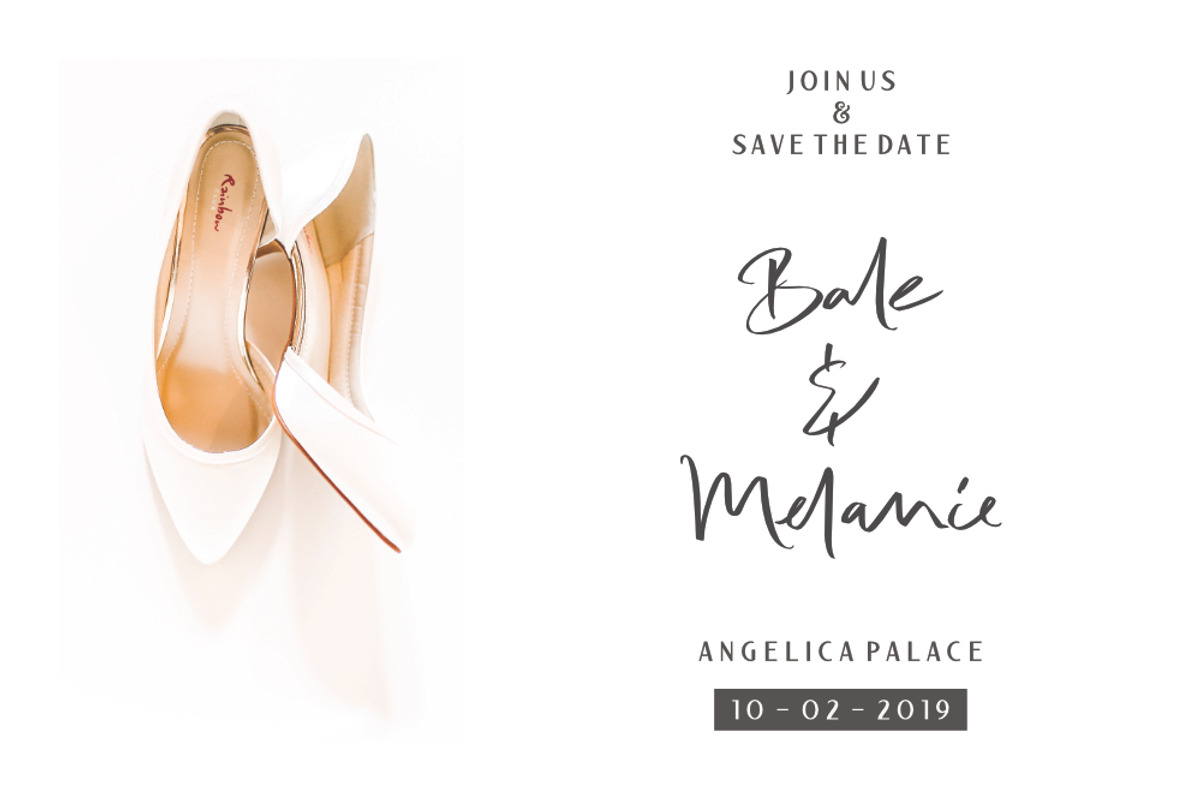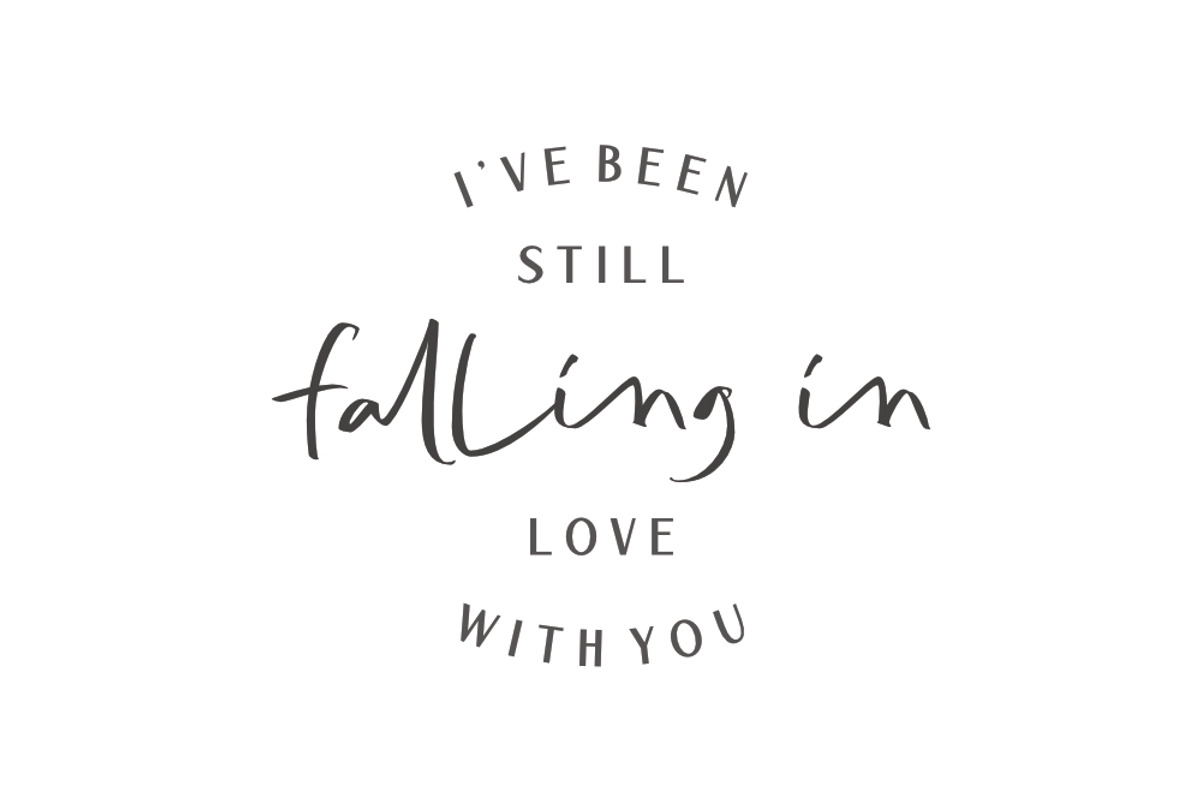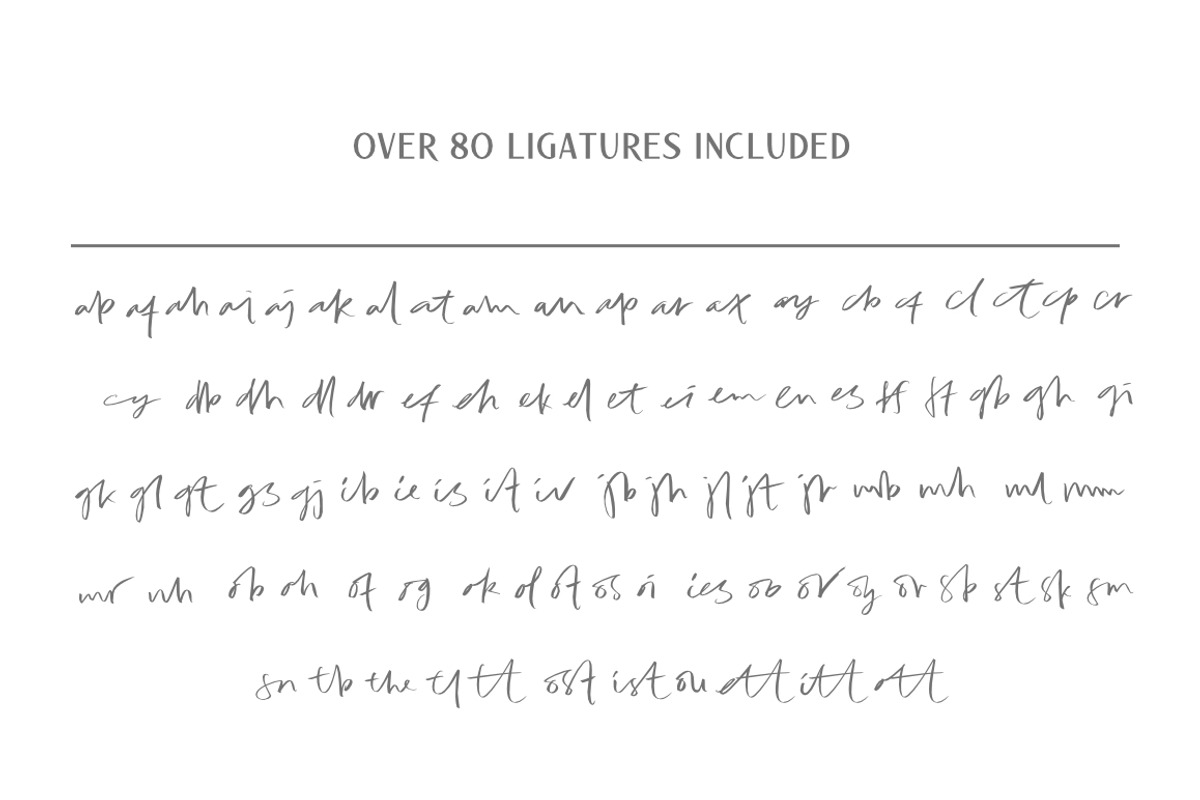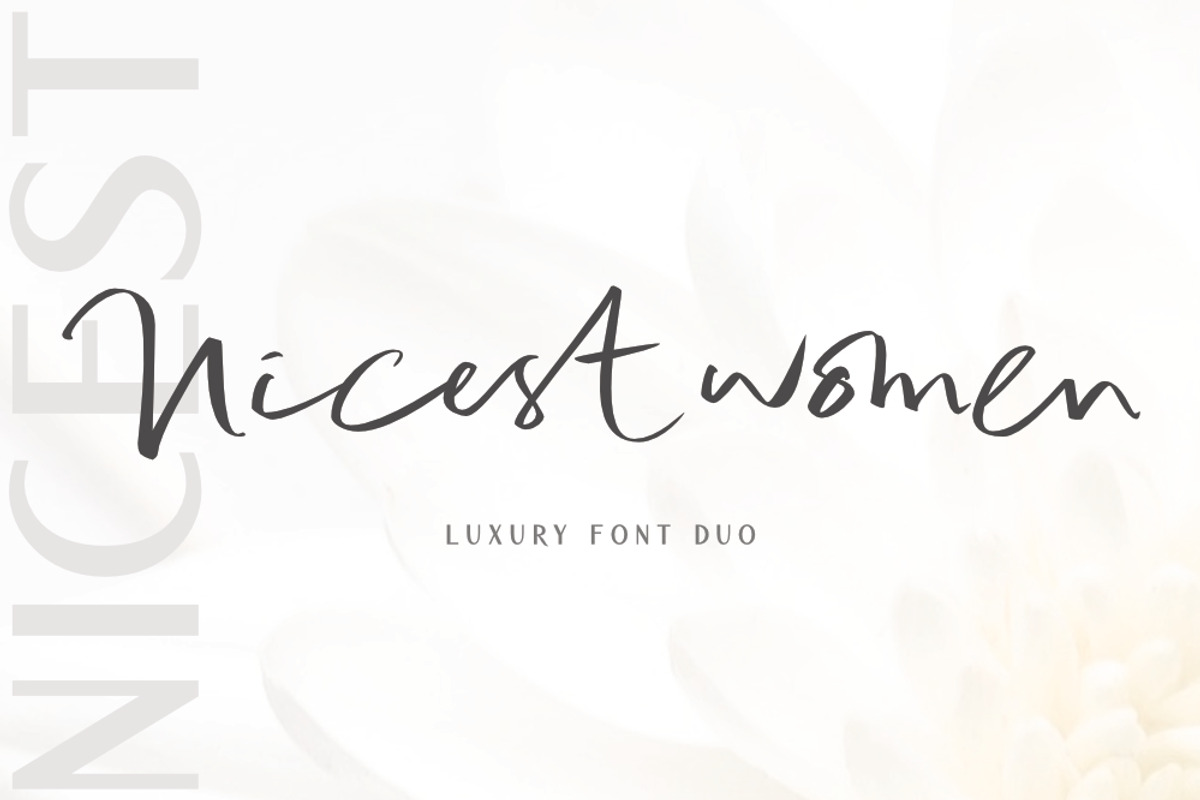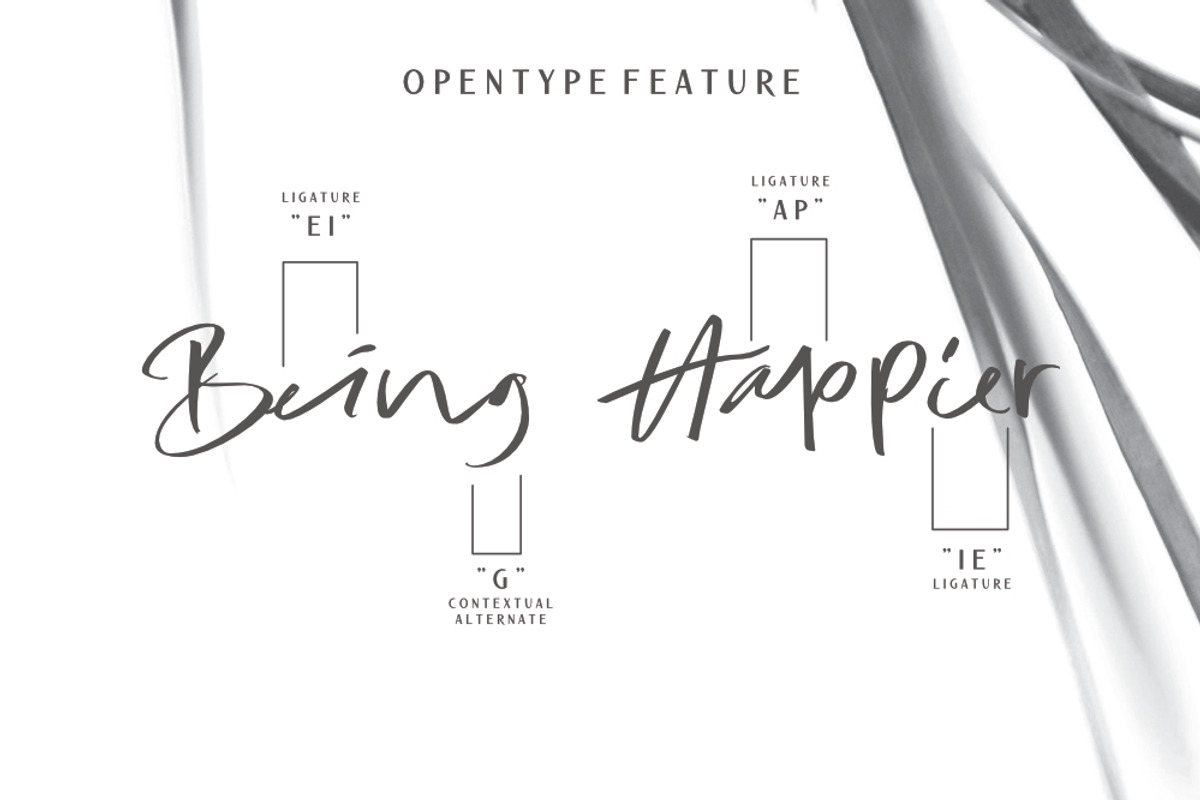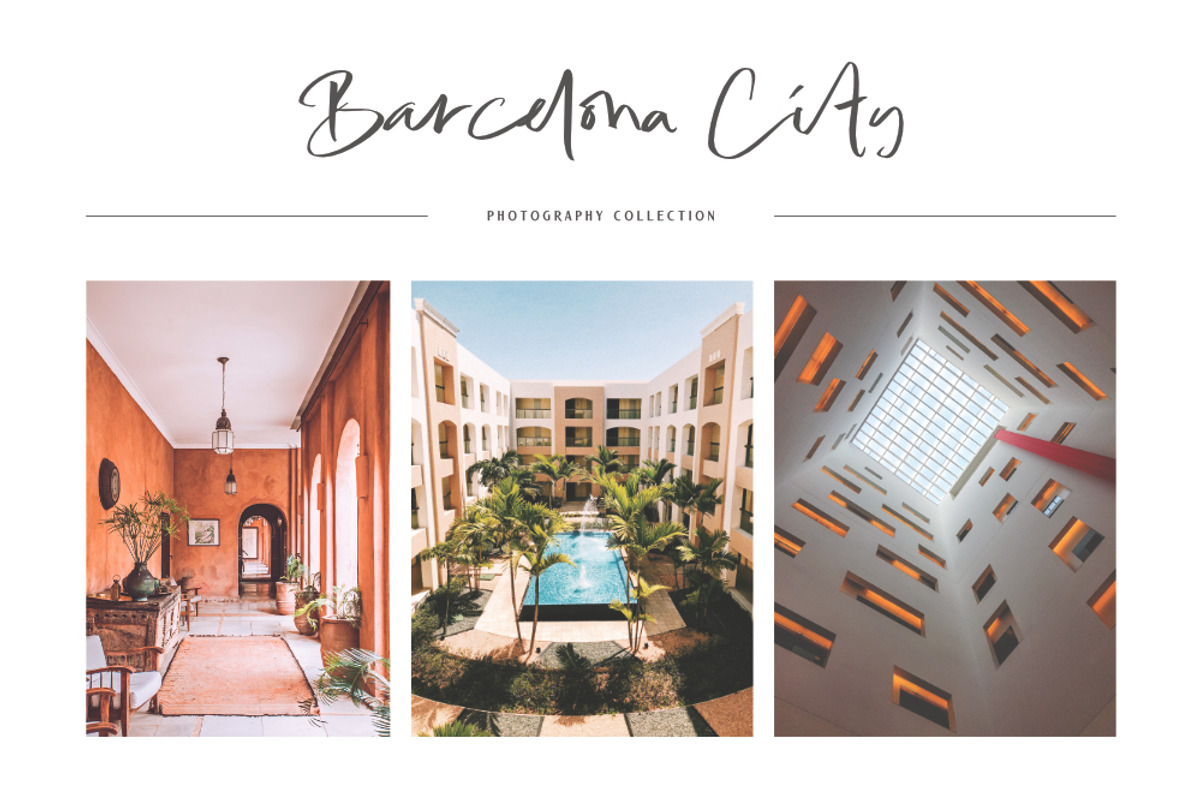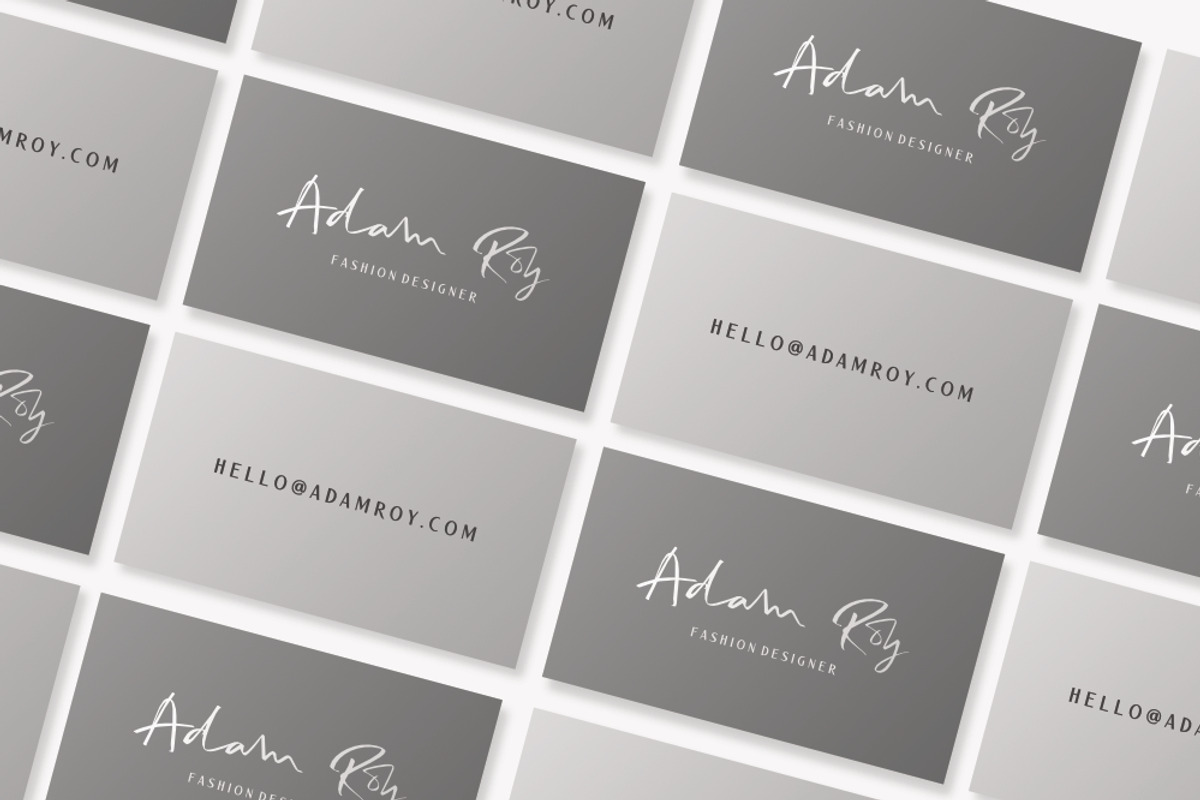
The Nicest Women // Font Duo
The Nicest Women is a high luxury font duo that makes for gorgeous logos, poster, wedding invitations, blog posts, social media, and more.
Standard Characters (Uppercase & Lowercase)
Opentype (Alt, Ligature, Contextual)
- The Nicest Women came with script and sans, The Nicest Women script included over 80 ligatures to make your typography looks naturally.
The Nicest Women // Font Duo by Andika Fez fits naturally into Branding, posters, packaging, typography.